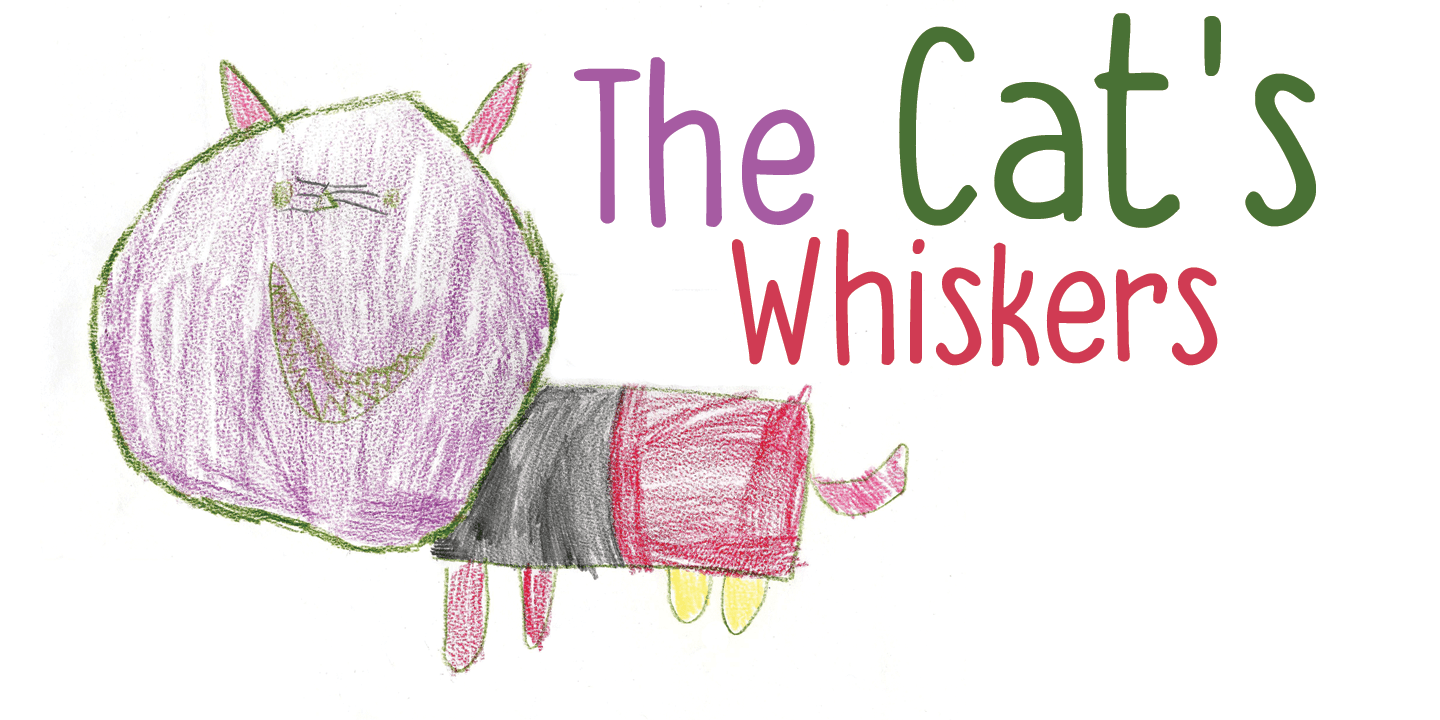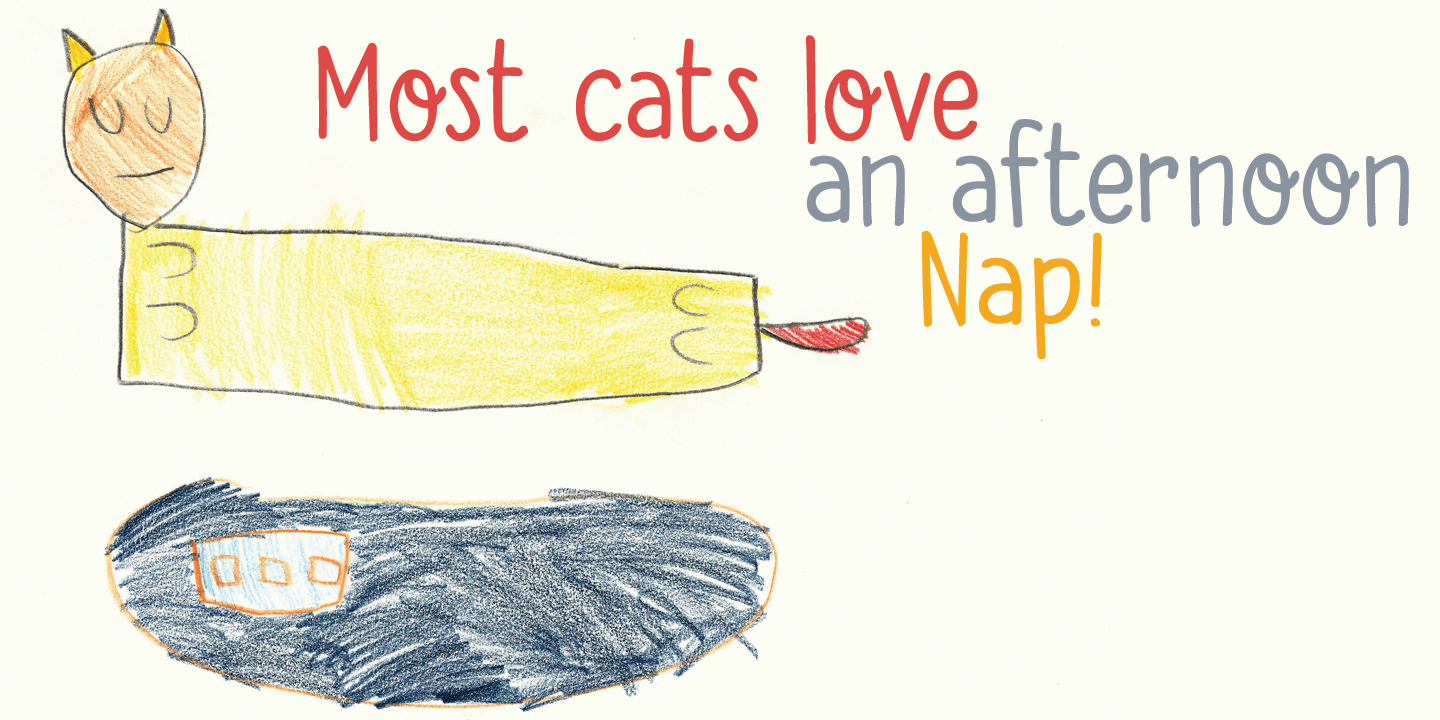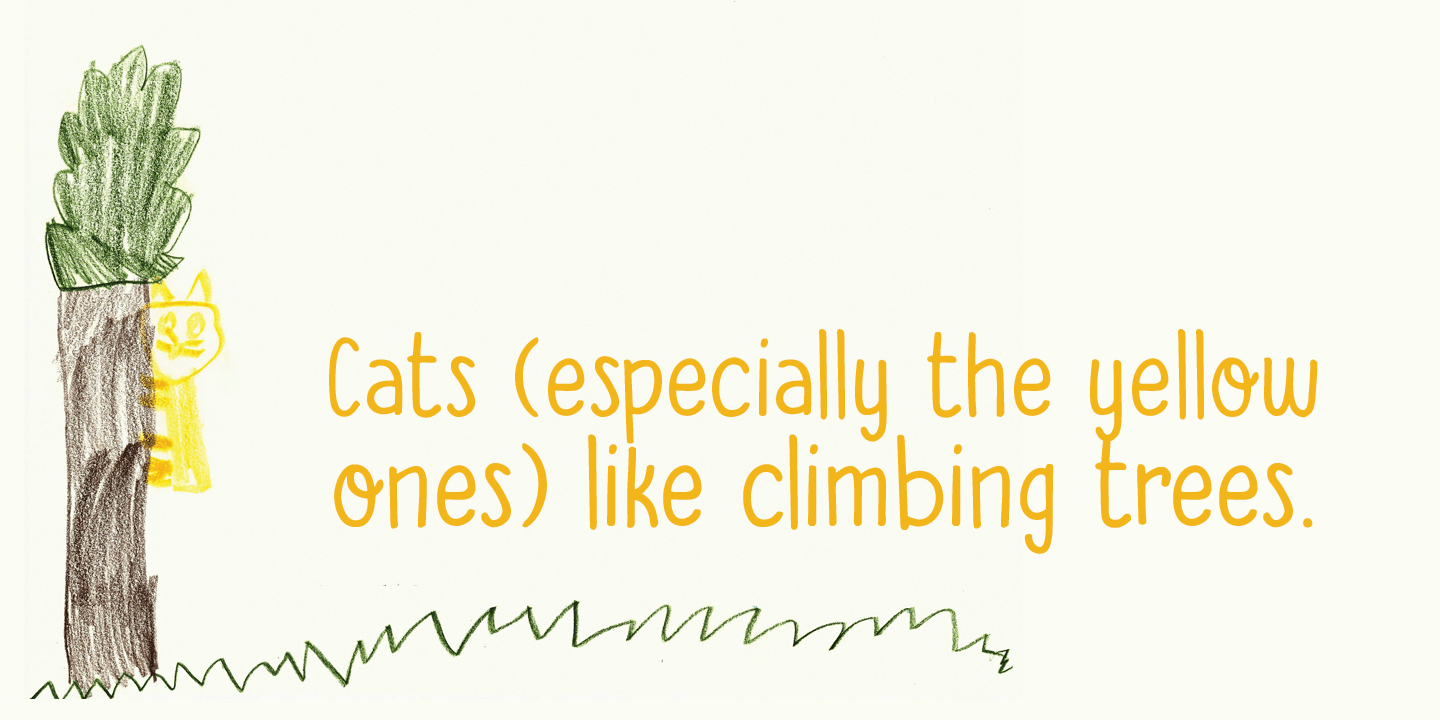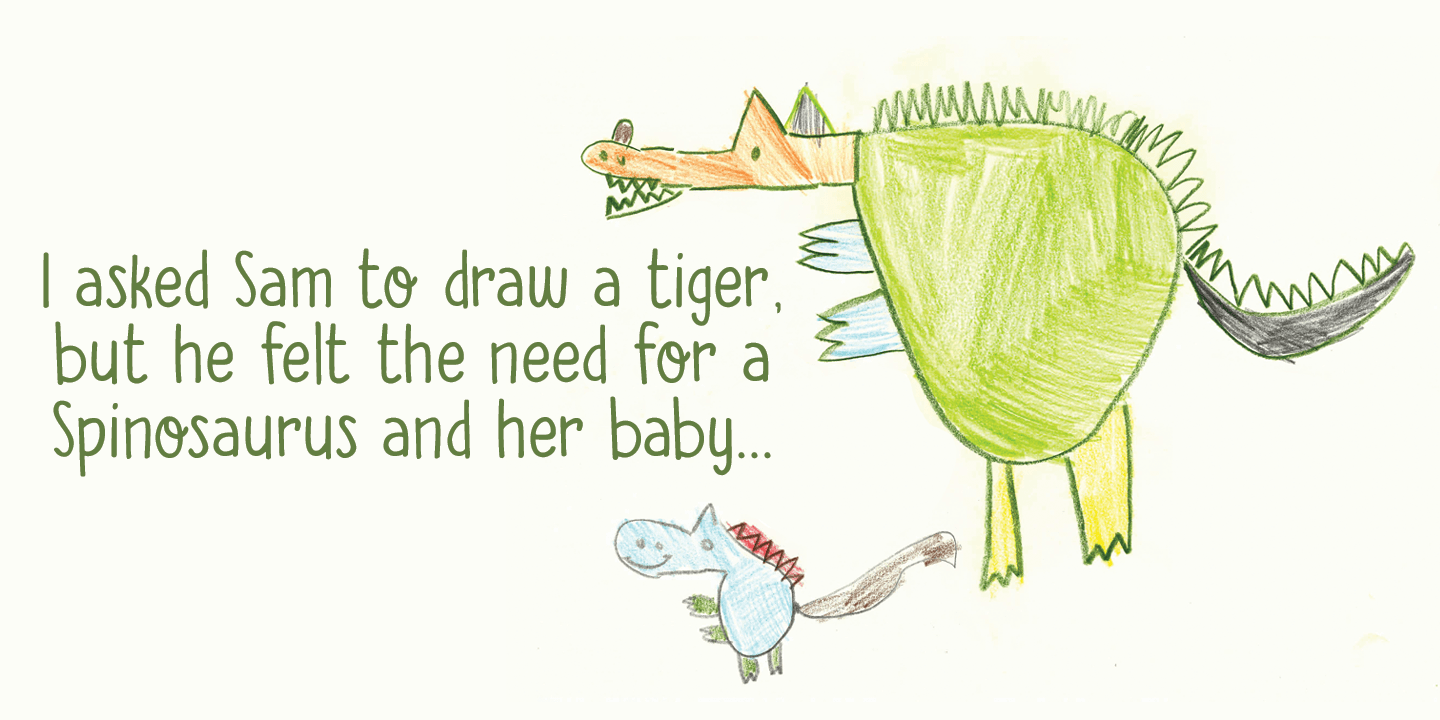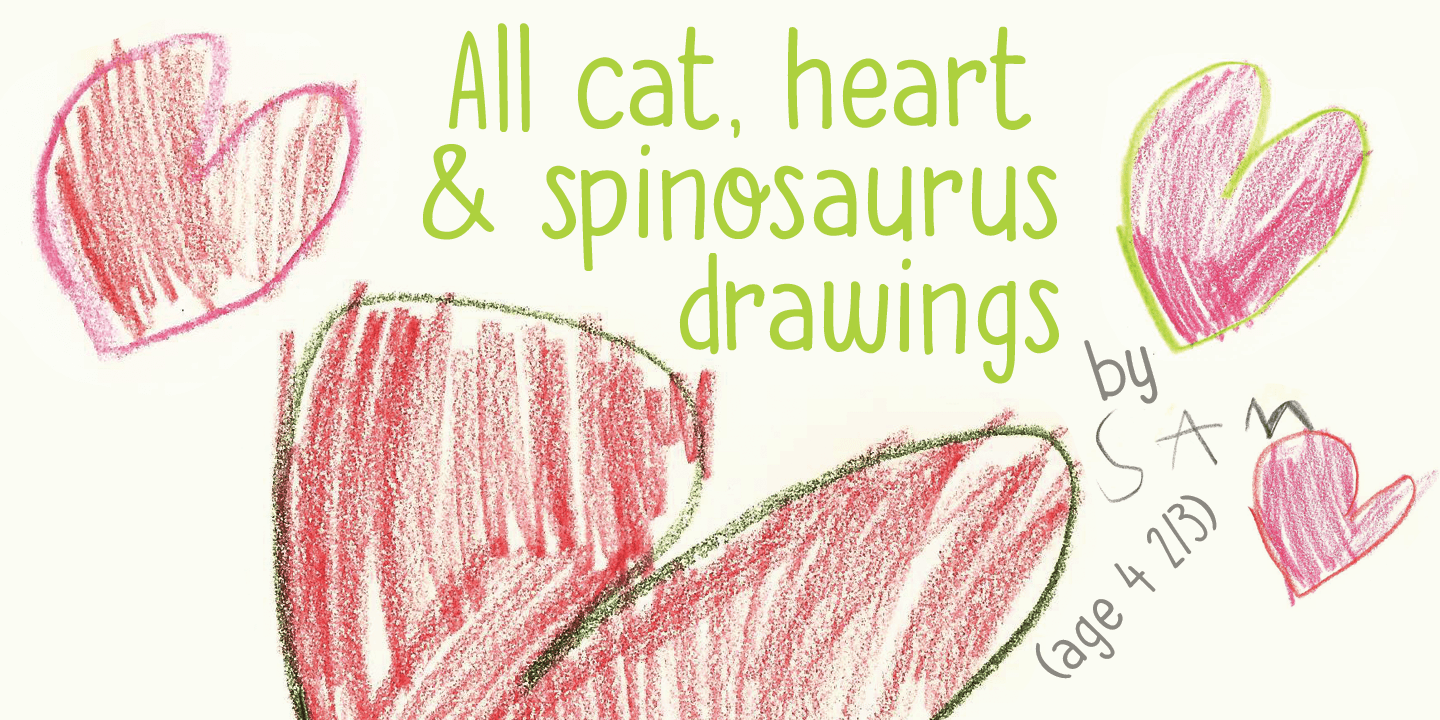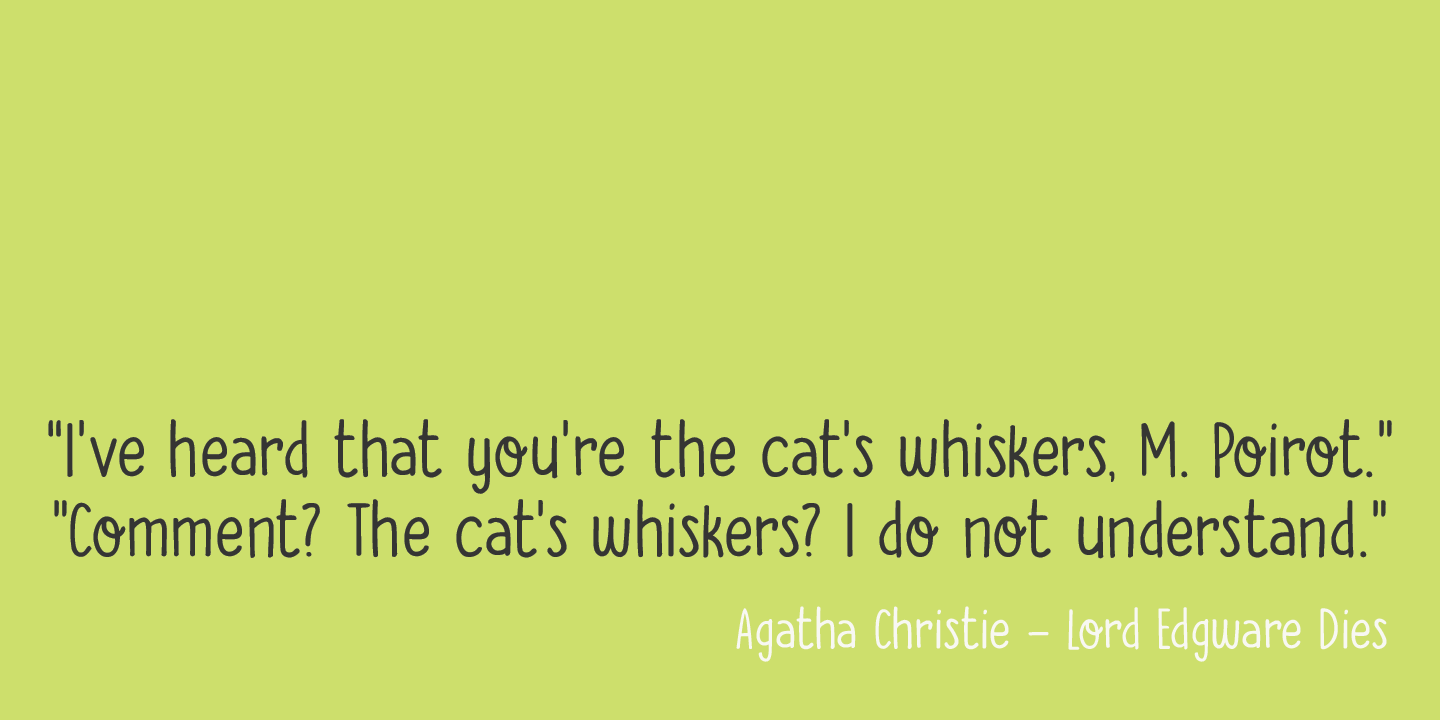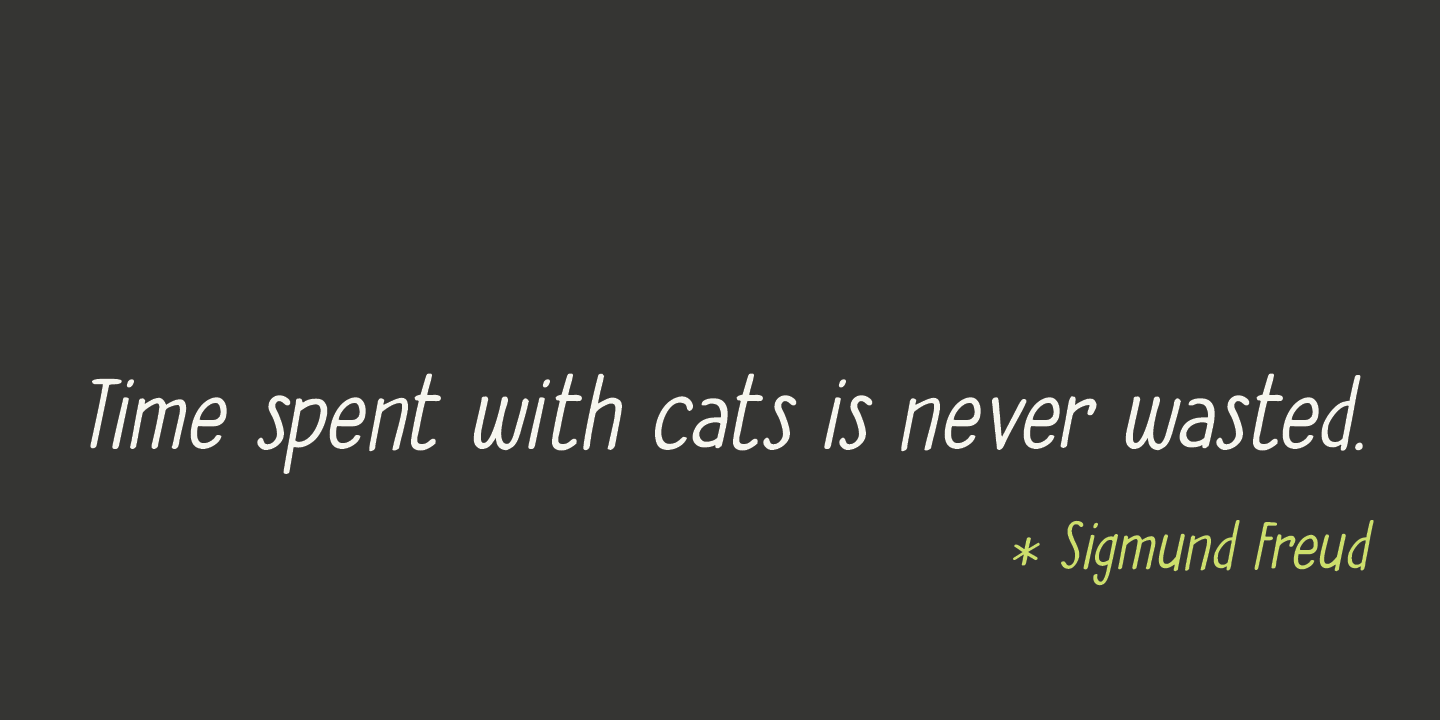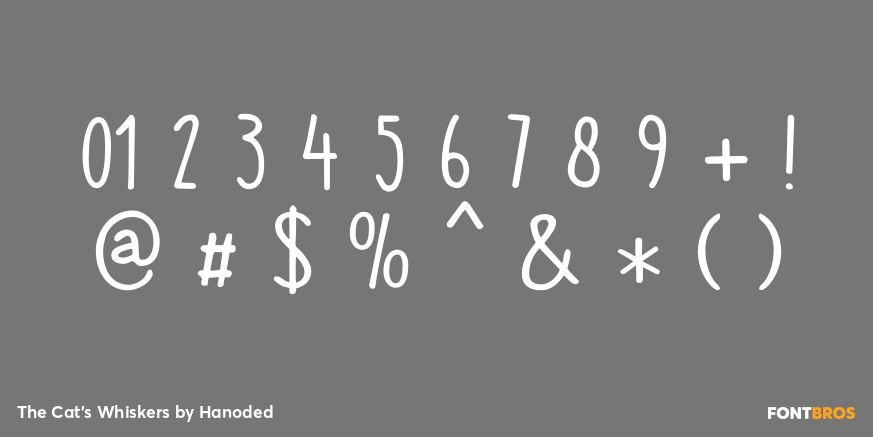
The Cat's Whiskers
Ok. Another font with cats in it. I asked my son, Sam (age 4), to draw some cats and I have to say: I'm very proud of what he created. The tiger I asked him for became a spinosaurus mom with her baby and I also got some happy hearts thrown in for good measure.
The Cat's Whiskers is a very legible hand made font. Nice and loose, not too messy and with just a hint of childishness. Comes with a litter of diacritics. Oh? and a big thank you to Jakob from pizzadude.dk for suggesting I should post more pics of cats on FB - which eventually led to the name of this font.